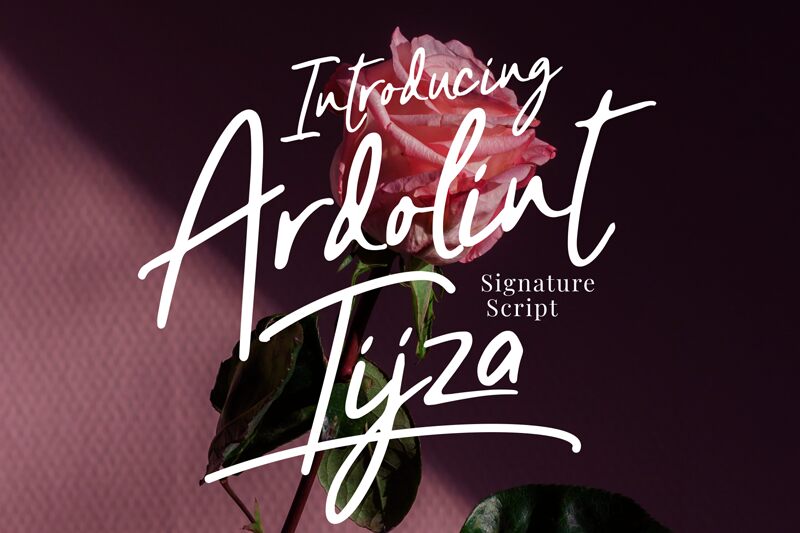
Ardolint Tijza 字体预览
Ardolint Tijza, crafted by the talented Mabhal Studio, is an enchanting handwritten font exuding elegance and grace. With its semi-light weight, this font is perfect for projects requiring a delicate touch. Its flowing strokes add a touch of sophistication to wedding invitations and greeting cards. For fashion blogs or lifestyle magazines, Ardolint Tijza's organic feel brings a sense of authenticity to articles and headlines. Embrace the charm of this versatile typeface in branding materials for artisanal products or use it in logo designs for cafes and boutiques – Ardolint Tijza adds a touch of refined character to any project.